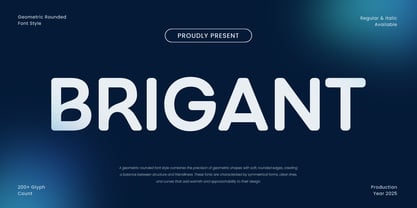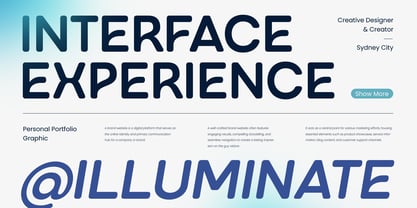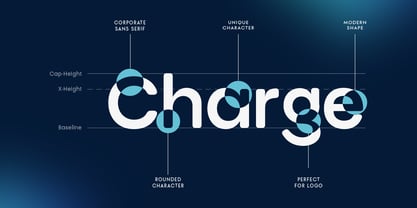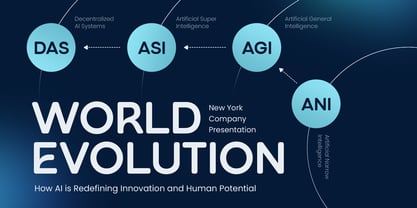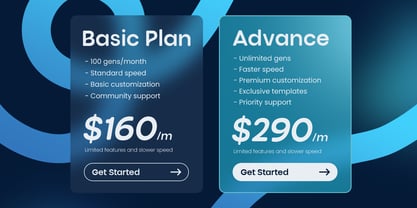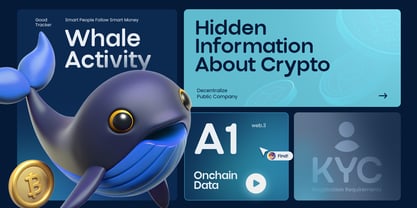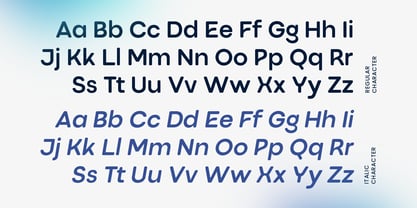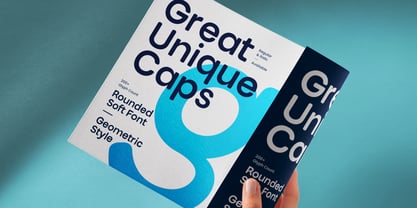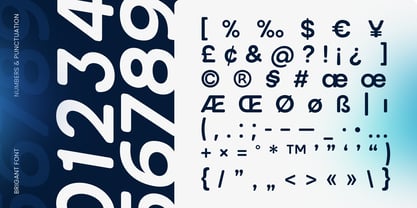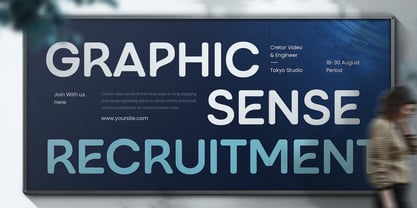
Brigant is a geometric rounded font that blends modern precision with a friendly, approachable personality. Its smooth curves and clean construction make it perfect for brands, digital products, and modern interfaces that need clarity with a touch of warmth.
Designed for versatility and readability, Brigant works beautifully in both headlines and body text. The font’s balanced proportions and soft terminals create a harmonious rhythm, making it suitable for corporate branding, packaging, web design, and creative projects.
Whether you’re designing a tech brand, lifestyle identity, or minimal UI, Brigant brings professionalism and charm together in a single modern typeface.
Brigant – Geometric Rounded Font Features
Clean and geometric rounded sans serif style
Perfect for branding, logos, packaging, and interfaces
Modern yet approachable appearance for various industries
Excellent readability for digital and print design
Uppercase, lowercase, numerals, and punctuation included
OpenType features for advanced typographic flexibility
Brigant